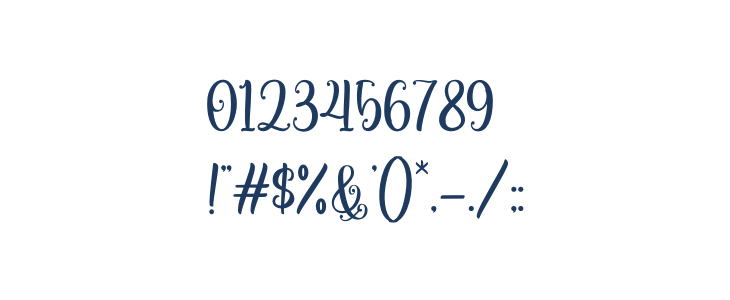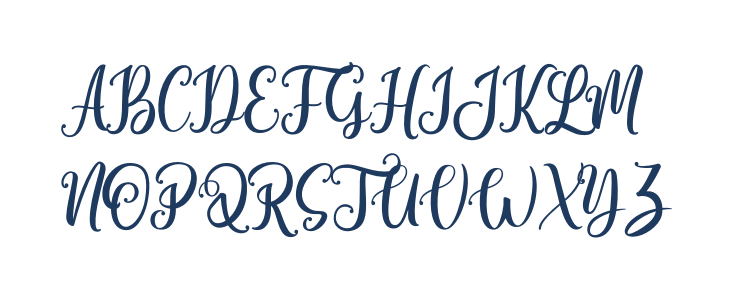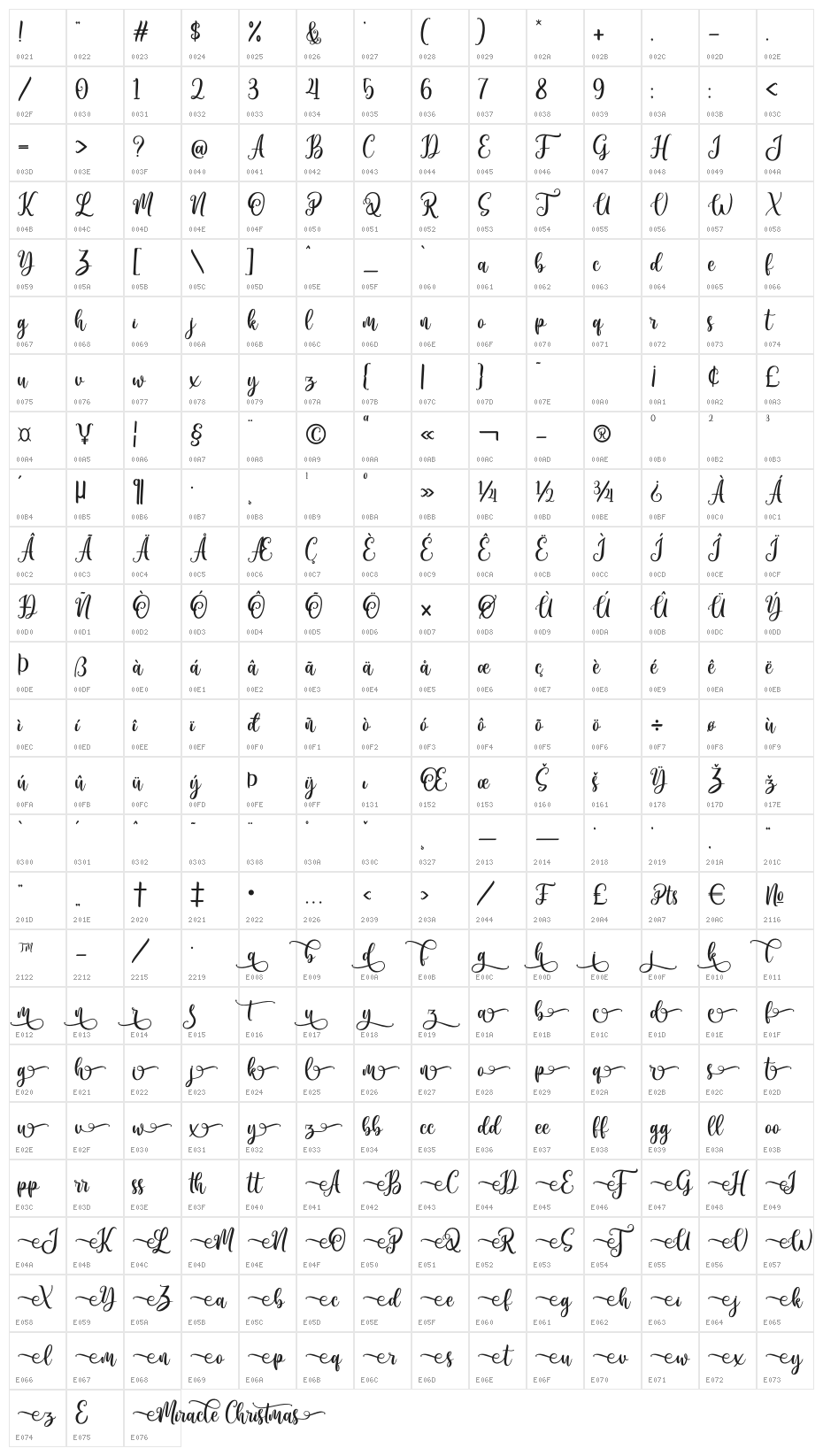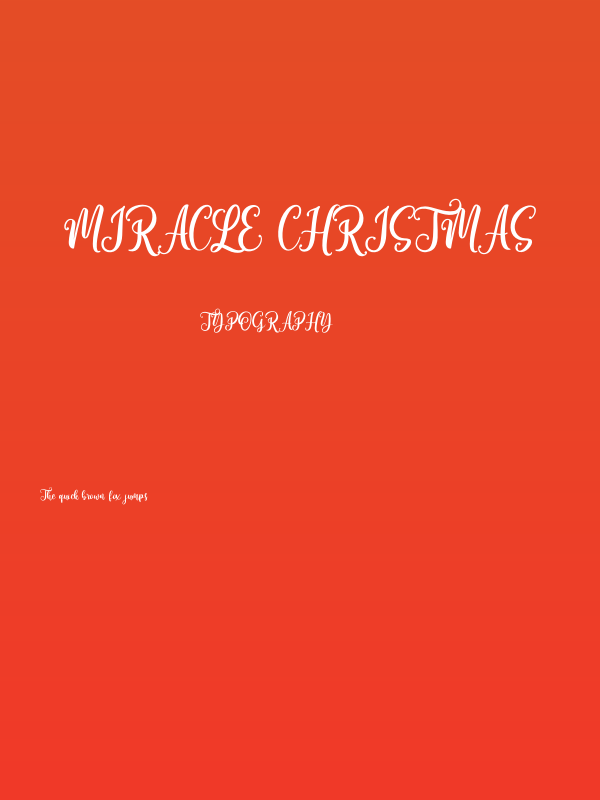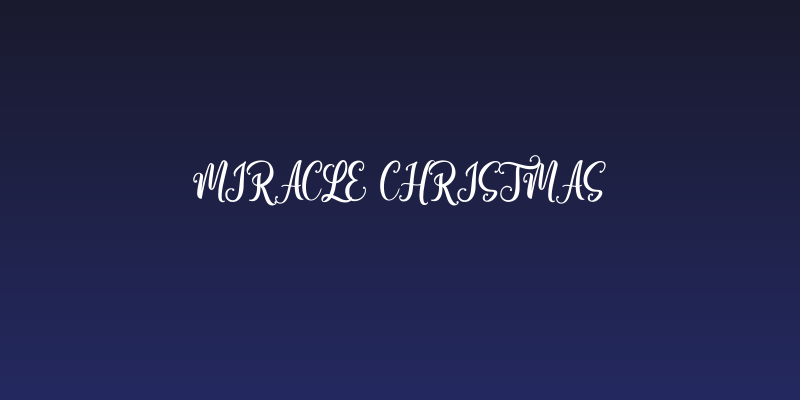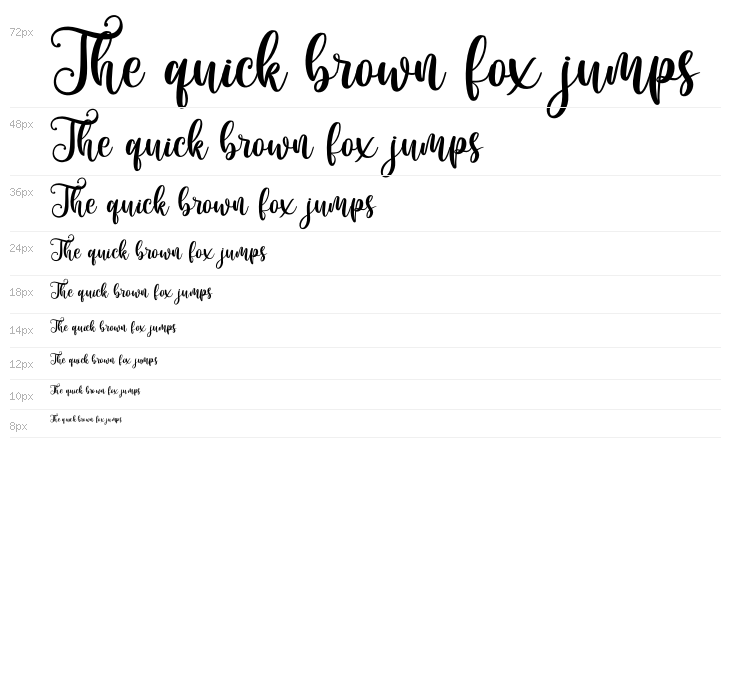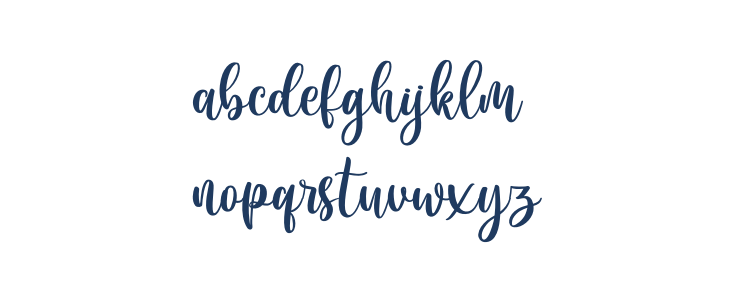
Miracle Christmas Font
Miracle Christmas Description
A decorative script font with flowing, connected letterforms and playful swashes, featuring both uppercase and lowercase characters, numerals, and punctuation. The strokes are moderately thick with varying contrast, giving a hand-lettered, festive appearance.
| Overall Style | Decorative, Festive, Handwritten |
| Use Case | Headlines, Logos, Invitations, Greeting cards |
| Proposed Projects | Holiday cards, invitations, branding, festive posters, social media graphics. |